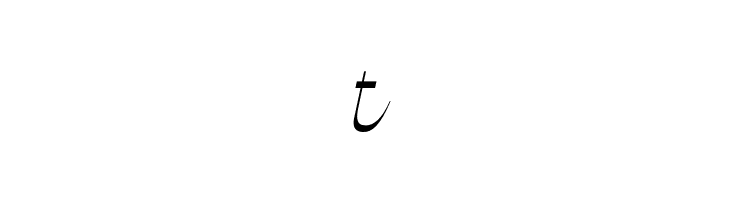
A sleek, italicized font with a modern and elegant style.
A sleek, elegant, and modern italic font with a light and airy feel.
A sleek, modern italic font with medium weight and dynamic style.
A modern, semi-bold italic font with sleek curves and sharp edges.
A sleek, thin italic font with elegant, elongated characters.
A bold, modern font combining geometric and script elements.
A bold, modern font with geometric and rounded elements, offering a dynamic and versatile style.
A sleek, modern font with an extra light weight and minimalistic design.
A modern, geometric font with clean lines and versatile applications.
A modern, geometric font with a playful touch in its lowercase letters.